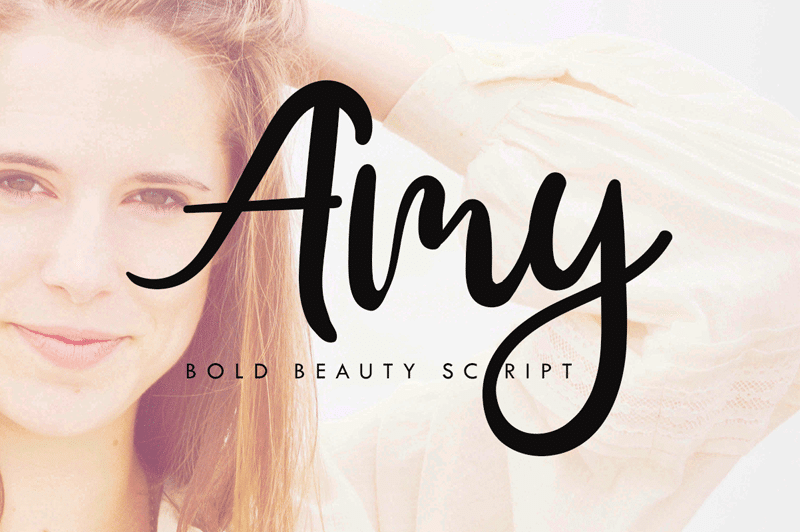
Amy Font is a lovely bouncy script font with a natural & stylish flow. Perfect for making elegant stylish statements – or adding a touch of class to your designs.
Amy is perfect for many different projects such as logos & branding, invitation, stationery, wedding designs, social media posts, advertisements, product packaging, product designs, label, photography, watermark, special events or anything.